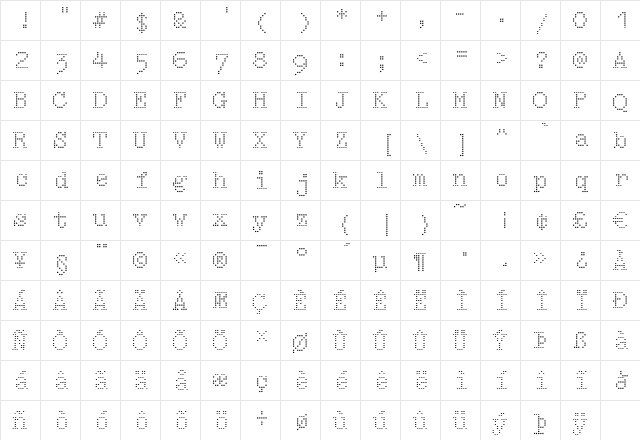
Intimo-One Regular
Design Context for Intimo-One Typeface
Intimo-One takes a measured approach to typography — its balanced proportions and neutral character make it a reliable workhorse for both digital and print work.
Pro Tip: Use Intimo-One in both headline and body roles to test its range before committing to a single application.